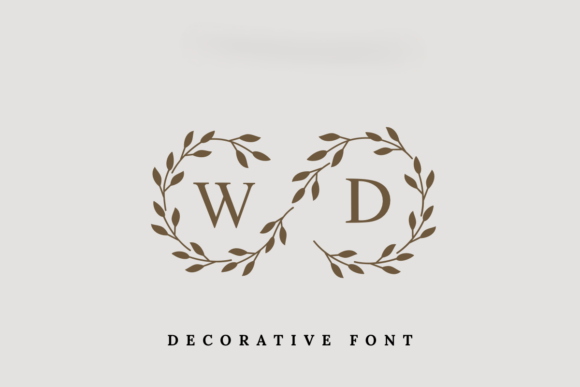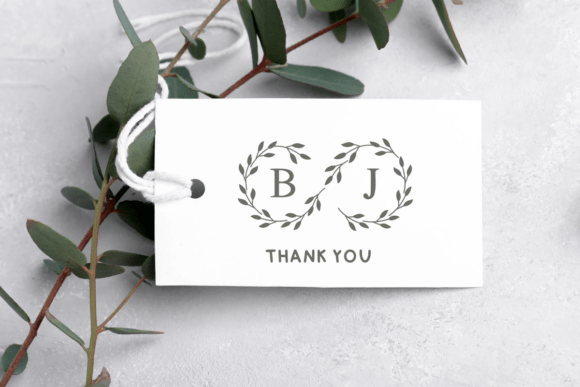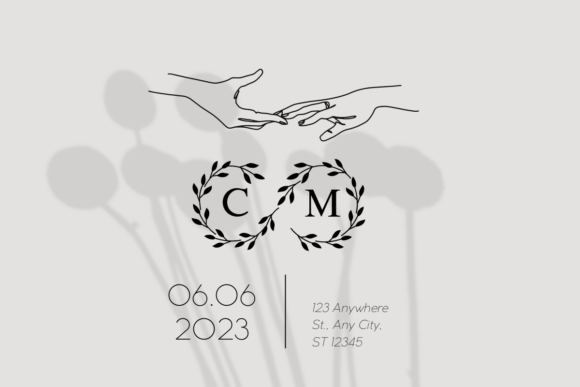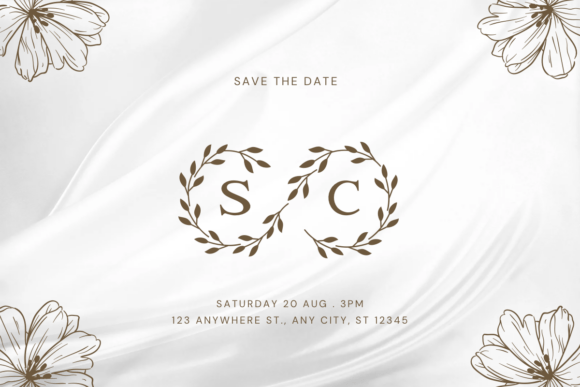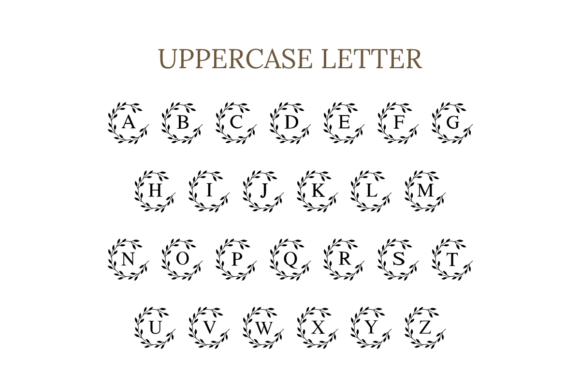
Wedding Day Monogram Font
Wedding Day Monogram is a beautifully minimal serif font encased in laurel wreaths, perfect for sophisticated and personalized branding. A timeless design tool for wedding invitations, stationery, and upscale gift items.